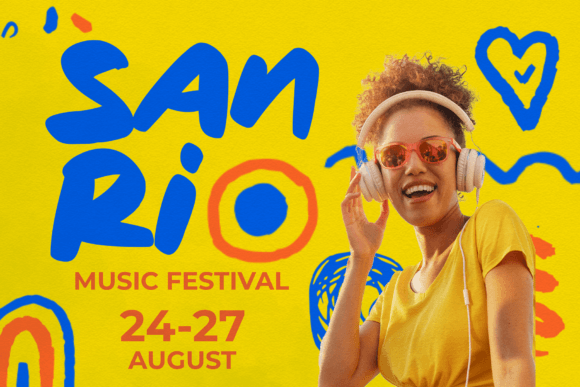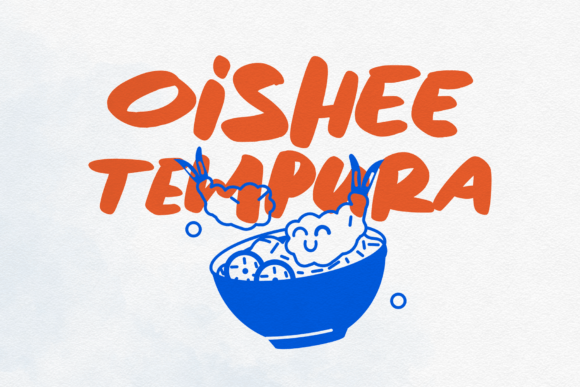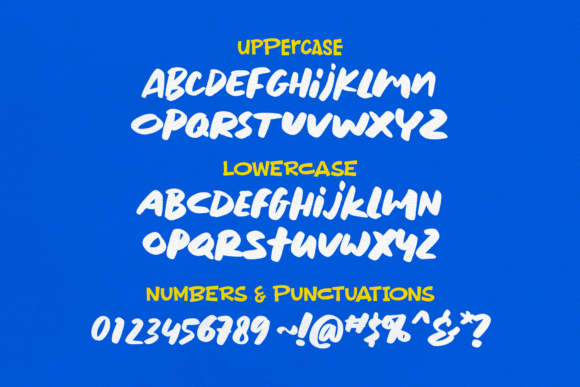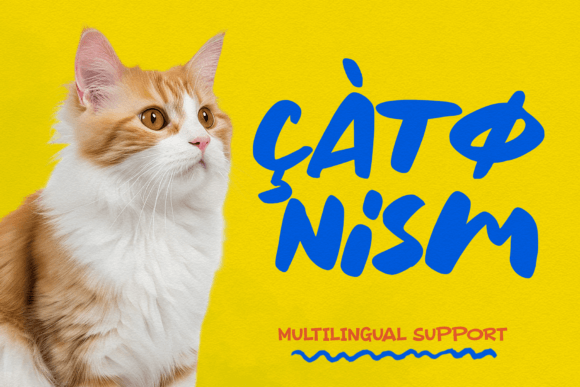
Introduction to Bakso Tahu Font
Introducing Bakso Tahu.
– the playful marker handwritten font that brings a sense of fun and spontaneity to your designs Perfect for projects that need a unique and lively touch, Bakso Tahu.
Key Features of Bakso Tahu Font
Why Choose Bakso Tahu Font?
Bakso Tahu Font offers exceptional quality and versatility, making it a valuable addition to your design toolkit. Whether you’re creating for personal projects or commercial use, Bakso Tahu Font delivers professional results.